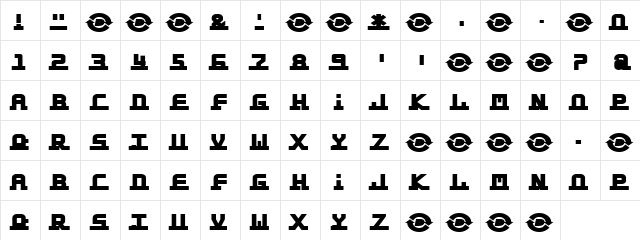
WallOfSound Regular
Design Context for WallOfSound Typeface
WallOfSound is a composed and adaptable typeface that performs quietly and consistently across a wide range of design contexts.